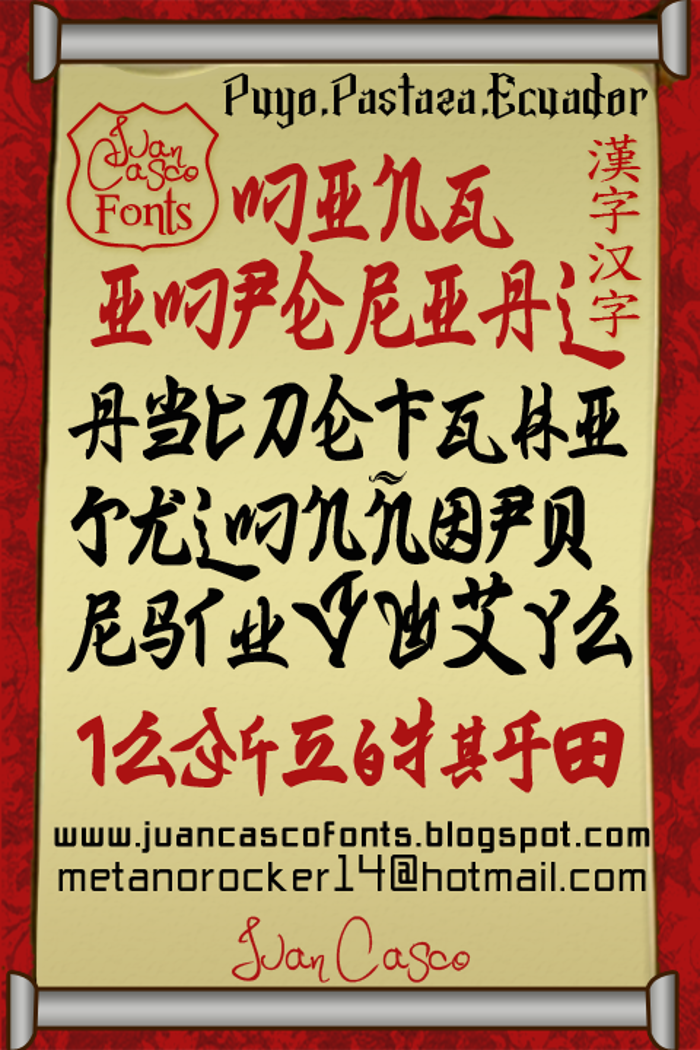
Ming Imperial Font
I must confess that the Ming Imperial design, I worked with actual Chinese characters and glyphs, namely the imminent ambiguity that can occur when you write something with the imperial Ming Font, and you show a Latin text that appears in Chinese, but still I do not know for sure at what level might mean something in Chinese "by accident"
I would say 75% min imperial contains Chinese characters or glyphs.
Now I must be clear that if you want to get a tattoo with the Font, I can not make me responsible for what you get tattoo to mean something more, this warning is for tattoo artists and customers.
Why is not the same one used in web, printing on fabric or paper ... that tattoo anything on the skin.
Since a tattoo is forever, and we must be very careful.
So if you think anyway make a tattoo with the Imperial Ming font, ask someone to speak and write in Chinese to avoid ambiguity.
I have that Chinese culture is very vast and very interesting.
yes, you´re right, i will correct this mistake
3 is the mirrored version of e
@fontsarethebest77 , yeah thats its true, but for me , this isnt a mistake
tight its like hidden English my sister thought it was full on Chinese:) good job
....and my Chinese wife could not understand it either, that it is my name!
@fontsarethebest77 i think it just confuses whoever read it for the first time, making it MORE interesting
I hope you realize its not real chinese its like wingdings random symbols assigned to letters of the alphabet if this disappointed any of you
I thought in was Chinese until I looked closely
well, even though I am a chinese ,I could not understand how the author created it . Some character shape aim't looks a latin word, but anyway ,this might be a good encrypt code for spy mission....
2 & Z ????
z&2lookthesame.